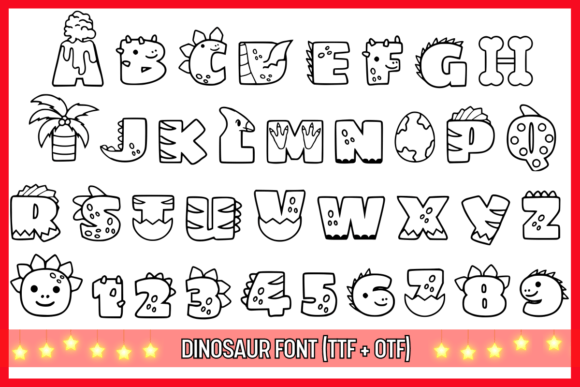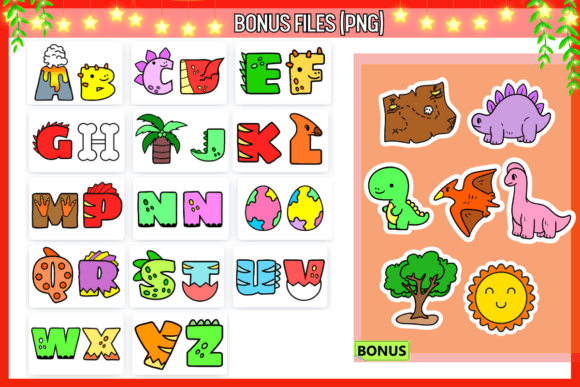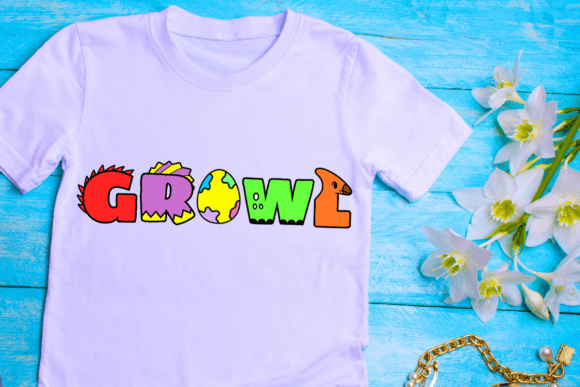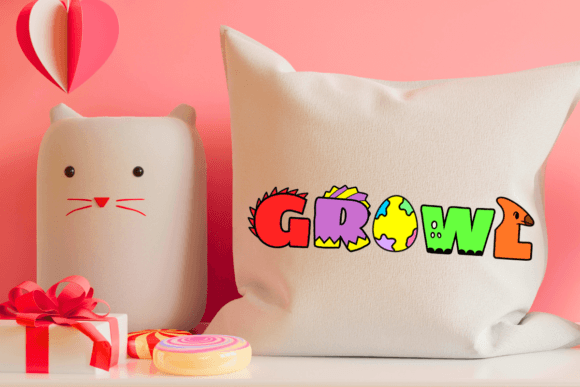
Dinosaur Font: A Roar-some Way to Add Fun and Creativity to Your Designs
Are you tired of using the same old fonts in your designs? Do you want to add a touch of whimsy and playfulness to your projects? Look no further than the dinosaur font! This special type of writing is a fun and creative way to make words look playful and interesting, perfect for adding a unique touch to projects like posters, invitations, and more.
What is Dinosaur Font?
“Dinosaur font” is a type of font where each letter is designed to look like a dinosaur. From A to Z, each letter is transformed into a prehistoric creature, making it a roar-some way to add some fun to your designs. Whether you’re a designer, crafter, or simply someone who loves dinosaurs, this font is sure to delight.
Characteristics of Dinosaur Font
The dinosaur font is characterized by its unique and playful design. Each letter is carefully crafted to resemble a different type of dinosaur, from the mighty T-Rex to the gentle Triceratops. The font is often colorful and bold, making it perfect for designs that need to stand out.
Uses of Dinosaur Font
The dinosaur font is perfect for a variety of design projects, including:
- Posters and flyers: Add a roar-some touch to your posters and flyers with this fun and playful font.
- Invitations: Make your invitations stand out with a dinosaur-themed font that’s sure to delight kids and adults alike.
- Logos and branding: Use the dinosaur font to create a unique and memorable logo for your business or brand.
- Crafting: Add a personal touch to your crafting projects, such as scrapbooking and card-making, with this fun and creative font.
Benefits of Using Dinosaur Font
There are many benefits to using the dinosaur font in your designs. Some of the advantages include:
- Uniqueness: The dinosaur font is a unique and creative way to add some personality to your designs.
- Playfulness: This font is perfect for designs that need to be fun and playful, such as children’s party invitations or posters.
- Customization: With a wide range of dinosaur designs to choose from, you can customize your font to fit your specific needs.
How to Use Dinosaur Font
The dinosaur font is a fun and creative way to add some personality to your designs. With its unique and playful design, it’s perfect for a variety of projects, from posters and invitations to logos and branding. Whether you’re a designer, crafter, or simply someone who loves dinosaurs, this font is sure to delight. So why not give it a try and add a roar-some touch to your next design project?